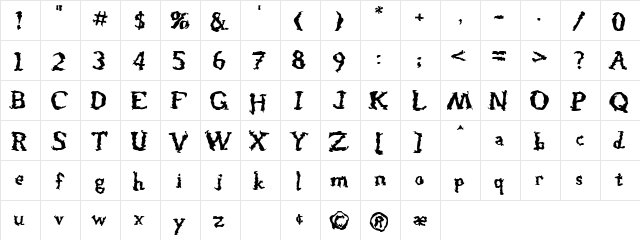
Josselyn Regular
Design Context for Josselyn Typeface
Josselyn is a composed and adaptable typeface that performs quietly and consistently across a wide range of design contexts.